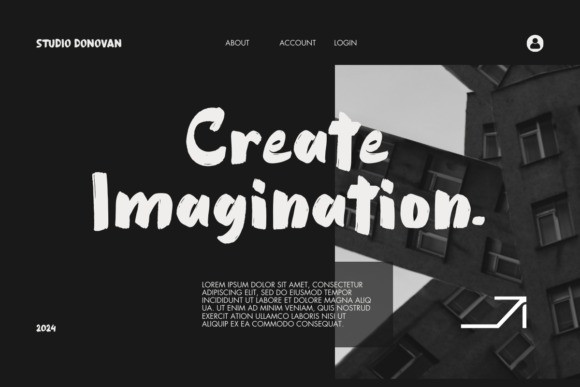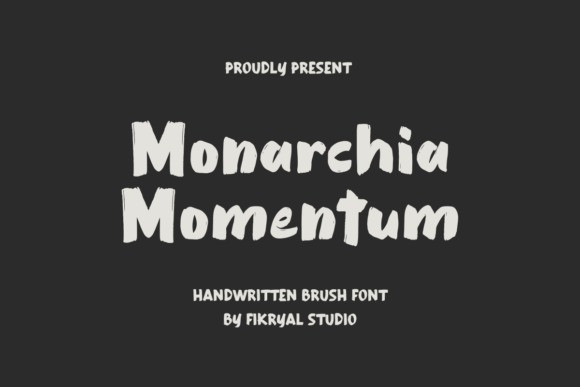
Monarchia Momentum Font
Monarchia Momentum Font is a captivating handwritten font, created with a spirit that flows freely. With an exclusive brush touch, this font brings forth bold and unique characters, combining elegance with courage.
Inspired by the dynamics of unlimited movement, Monarchia Momentum brings boundless creative power into every design project. Whether you’re designing a daring logo, impactful marketing materials, or captivating artwork, this font will be the perfect choice to add a personal touch and captivating energy.
With fine details and expressive style, Monarchia Momentum offers limitless possibilities to express your vision with clarity and standout uniqueness. Let each character tell its own story and bring your message to life with unmatched allure.